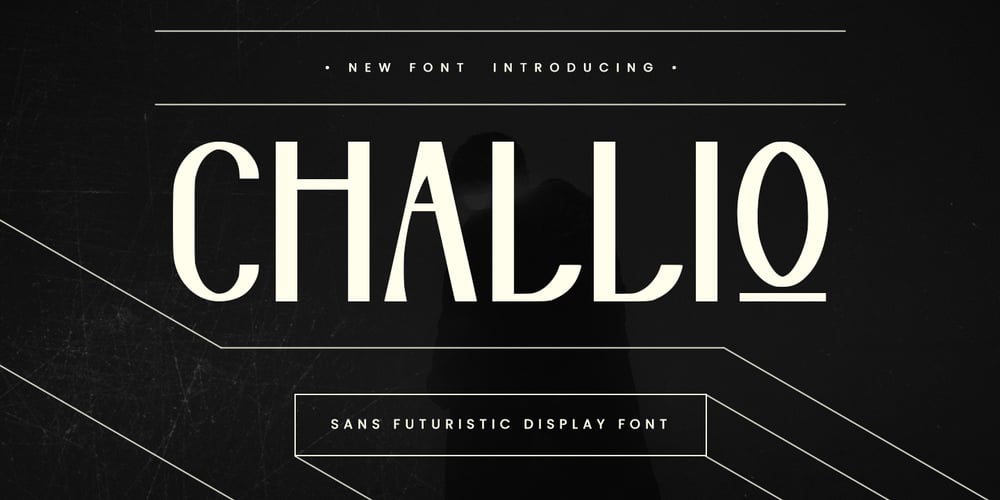
MC Challio Font Family was designed by Gilang Maulana and published by Maulana Creative. MC Challio contains 1 styles and family package options. Challio is a Sans Futuristic font inspired by the vintage 70’s sign board, music, shop and movies, it has a rough stroke outline and then we fill it. Challio includes opentype features Alternates. It support multilingual more than 100+ language. This font is good for logo design, Movie Titles, Books Titles and any awesome project you create. Make a stunning work with Challio sans font.Cheers,Maulana Creative